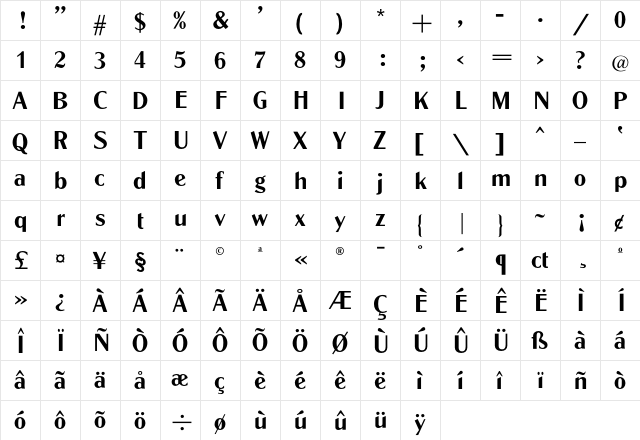
GlobeL Regular
Design Context for GlobeL Typeface
GlobeL takes a measured approach to typography — its balanced proportions and neutral character make it a reliable workhorse for both digital and print work.